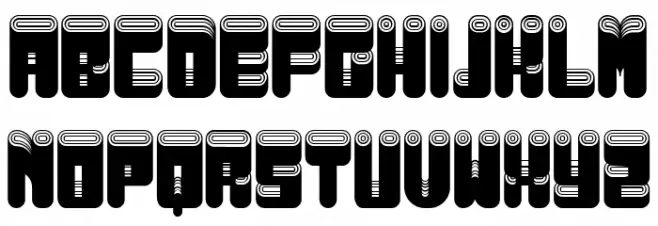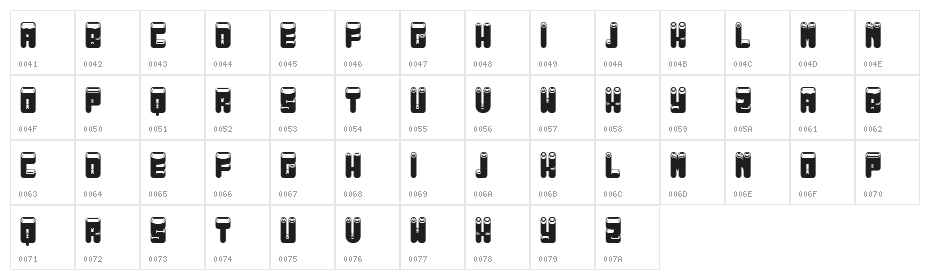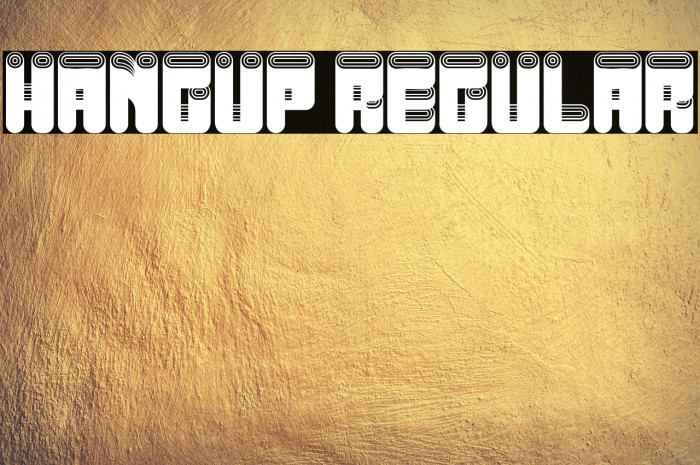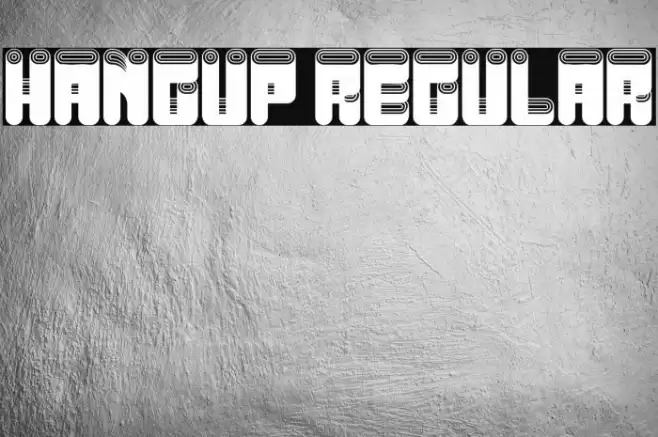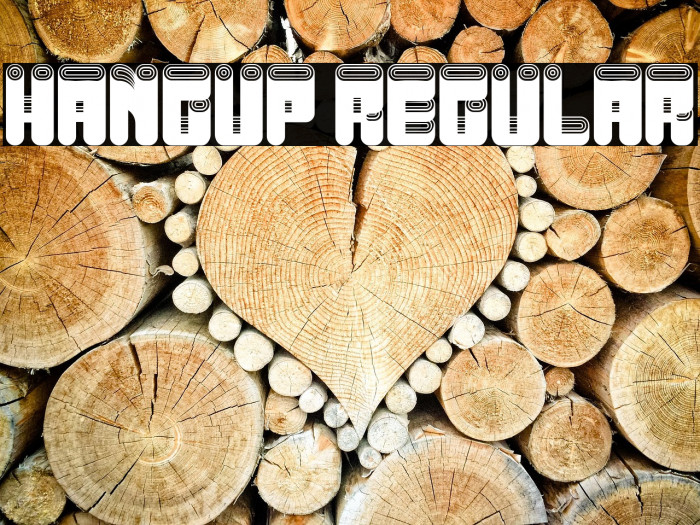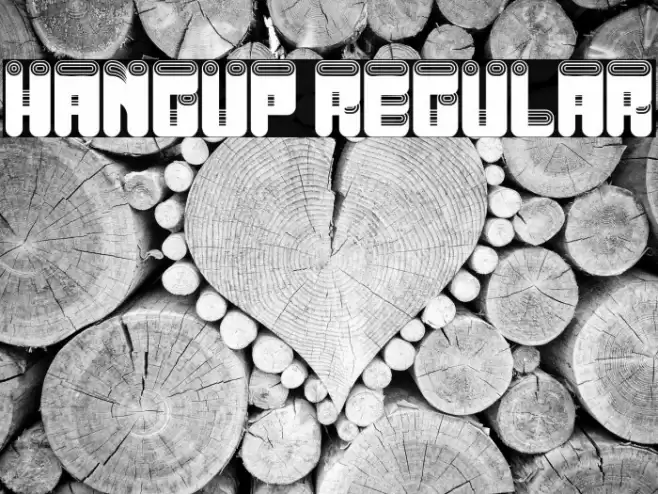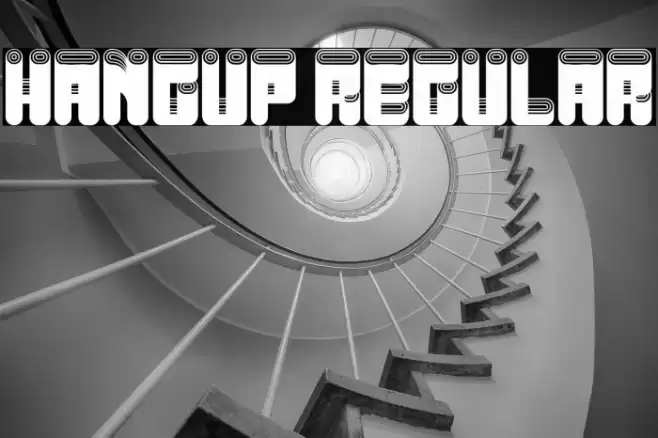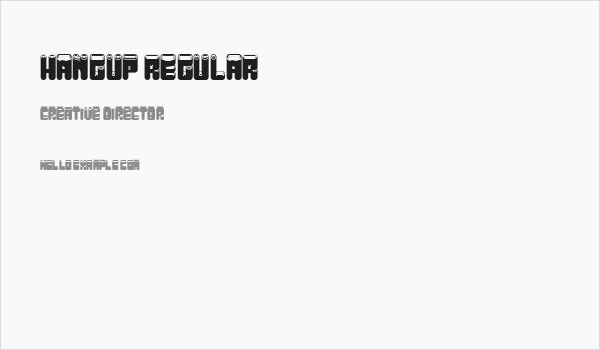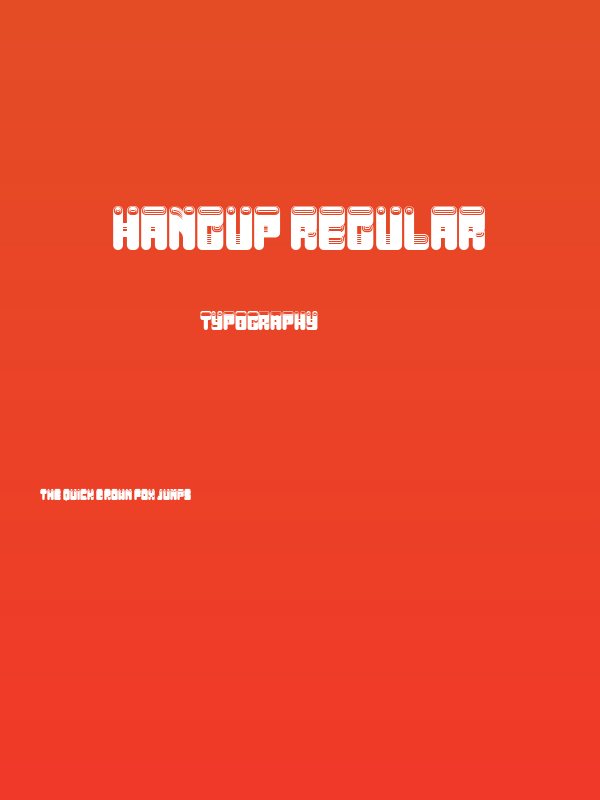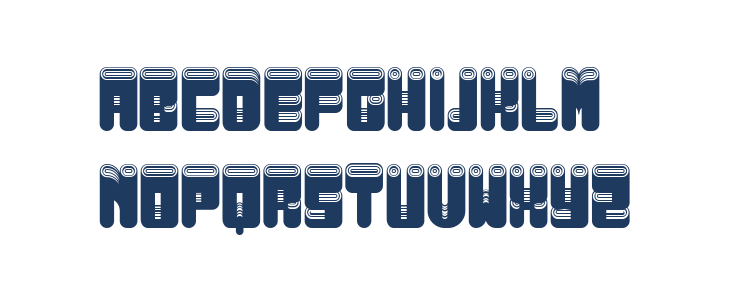
Hangup Regular Font
Hangup Regular Description
This font features a bold, decorative style with a unique, layered appearance. Each character is designed with a series of parallel lines that create a sense of depth and dimension. The letters are wide and blocky, giving them a strong presence. The font's playful and artistic design makes it stand out, with each character having a distinct, almost three-dimensional look. The uppercase and lowercase letters maintain a consistent style, while the numbers and special characters are crafted to match the overall aesthetic. This font is ideal for projects that require a bold and eye-catching typeface.
| Proposed Projects | Ideal for posters, logos, headlines, and any design that requires a striking and artistic typeface. |